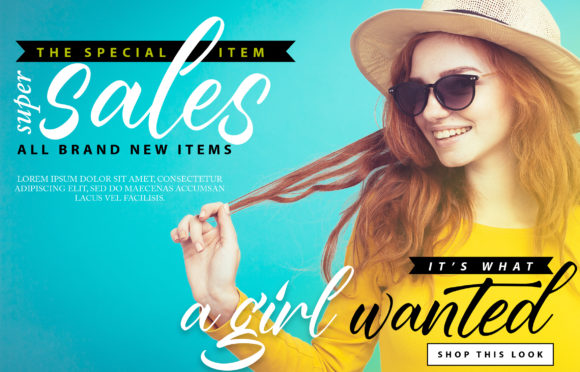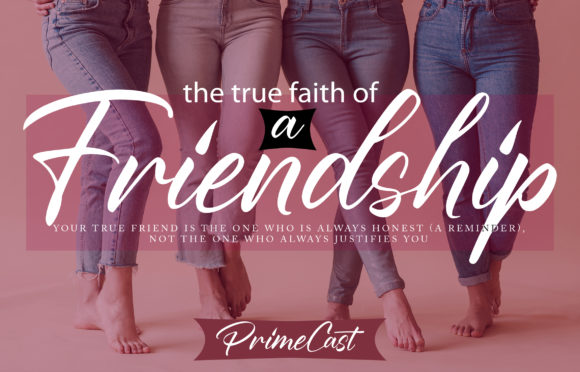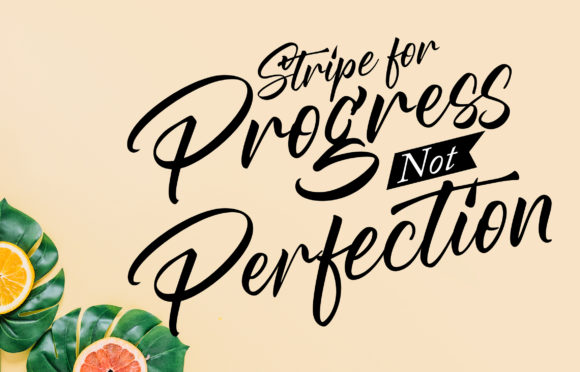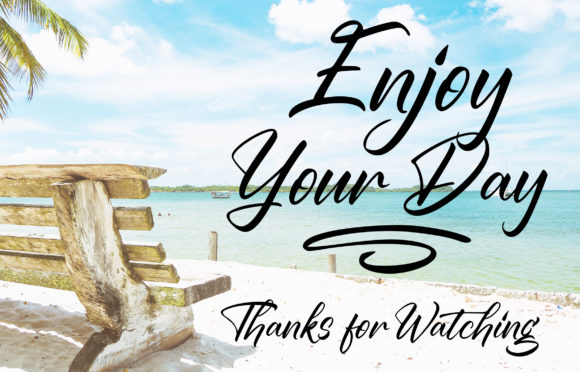
PrimeCast Font
About PrimeCast Font
PrimeCast feels equally charming and elegant. This script font will look outstanding in any context, whether it’s being used on busy backgrounds or as a standalone headline!